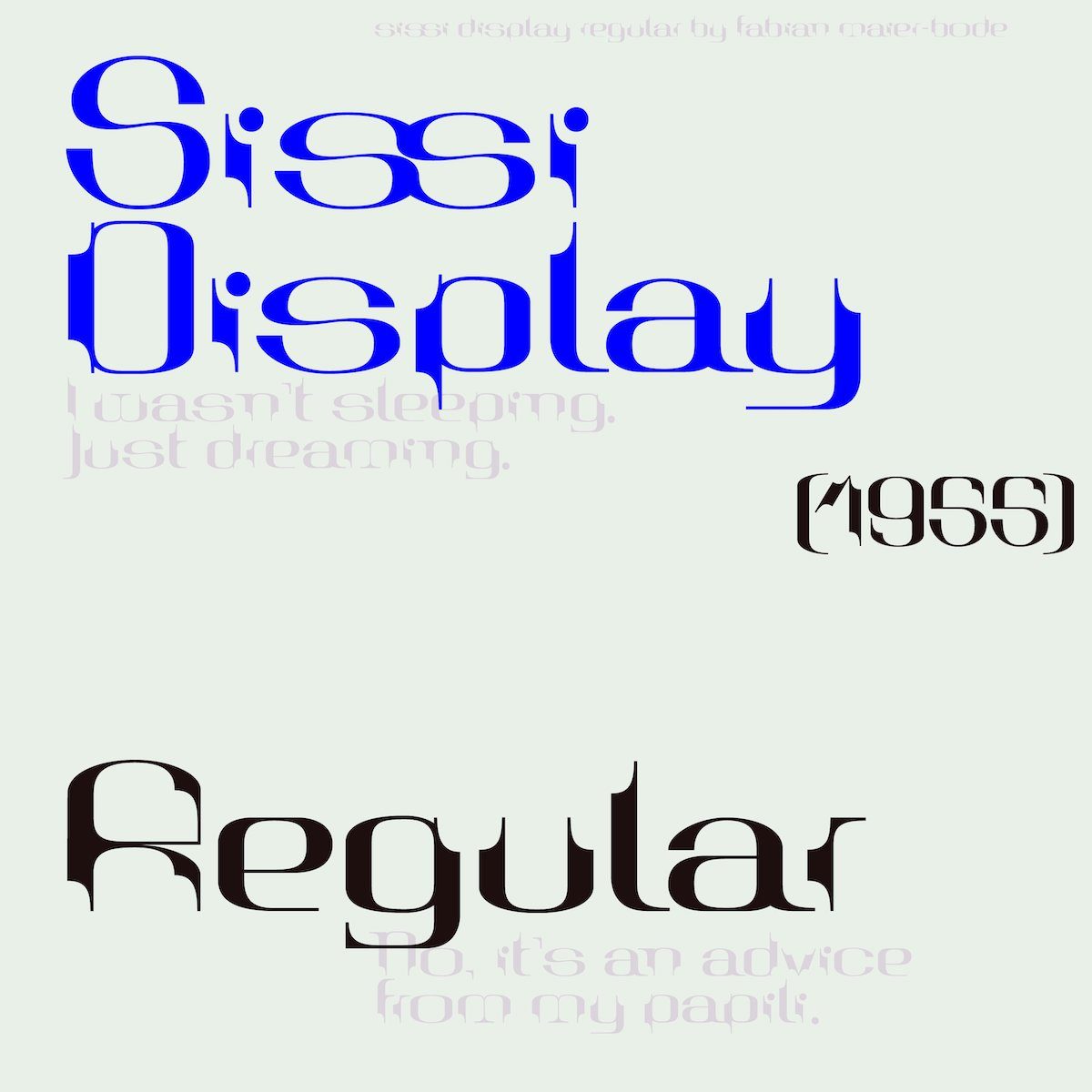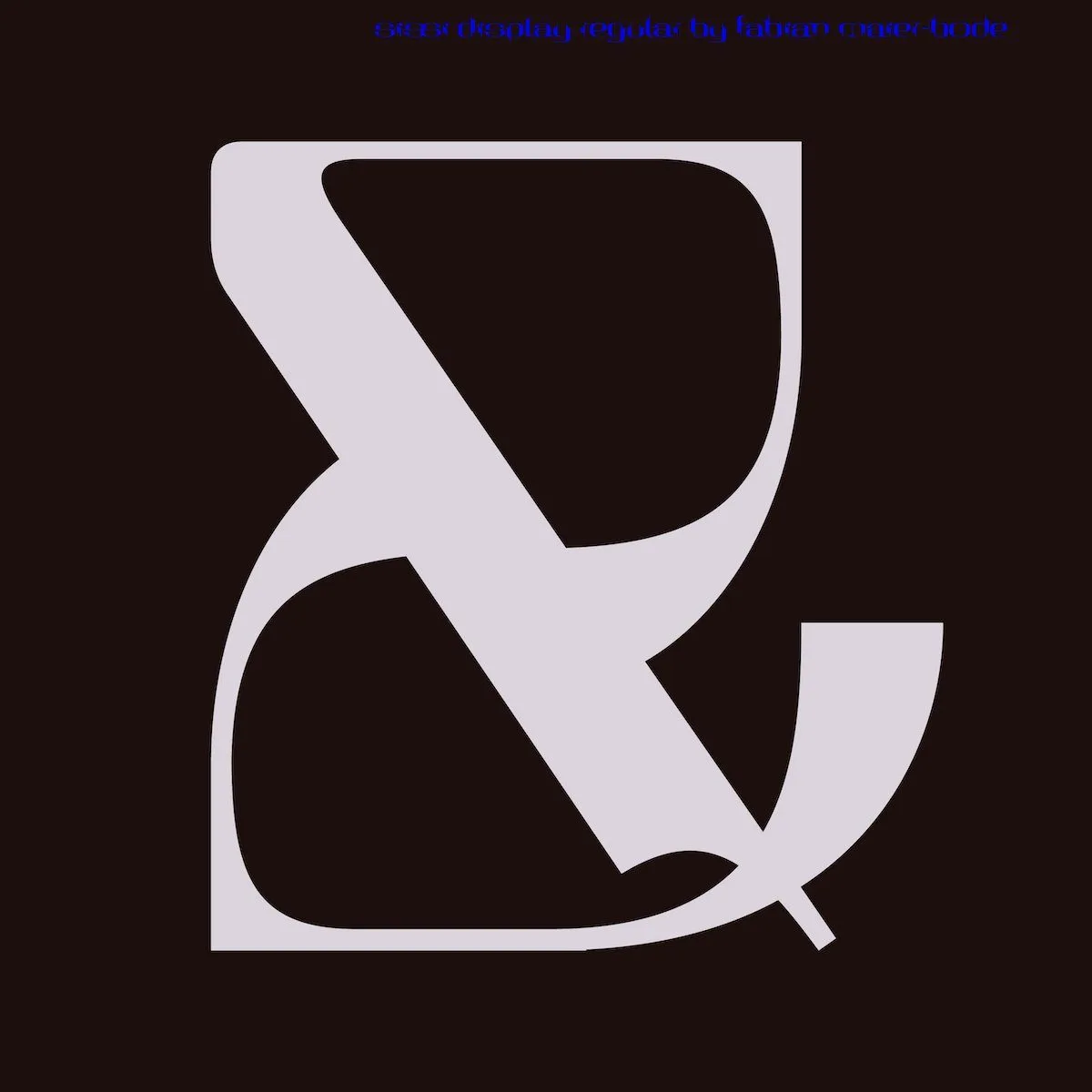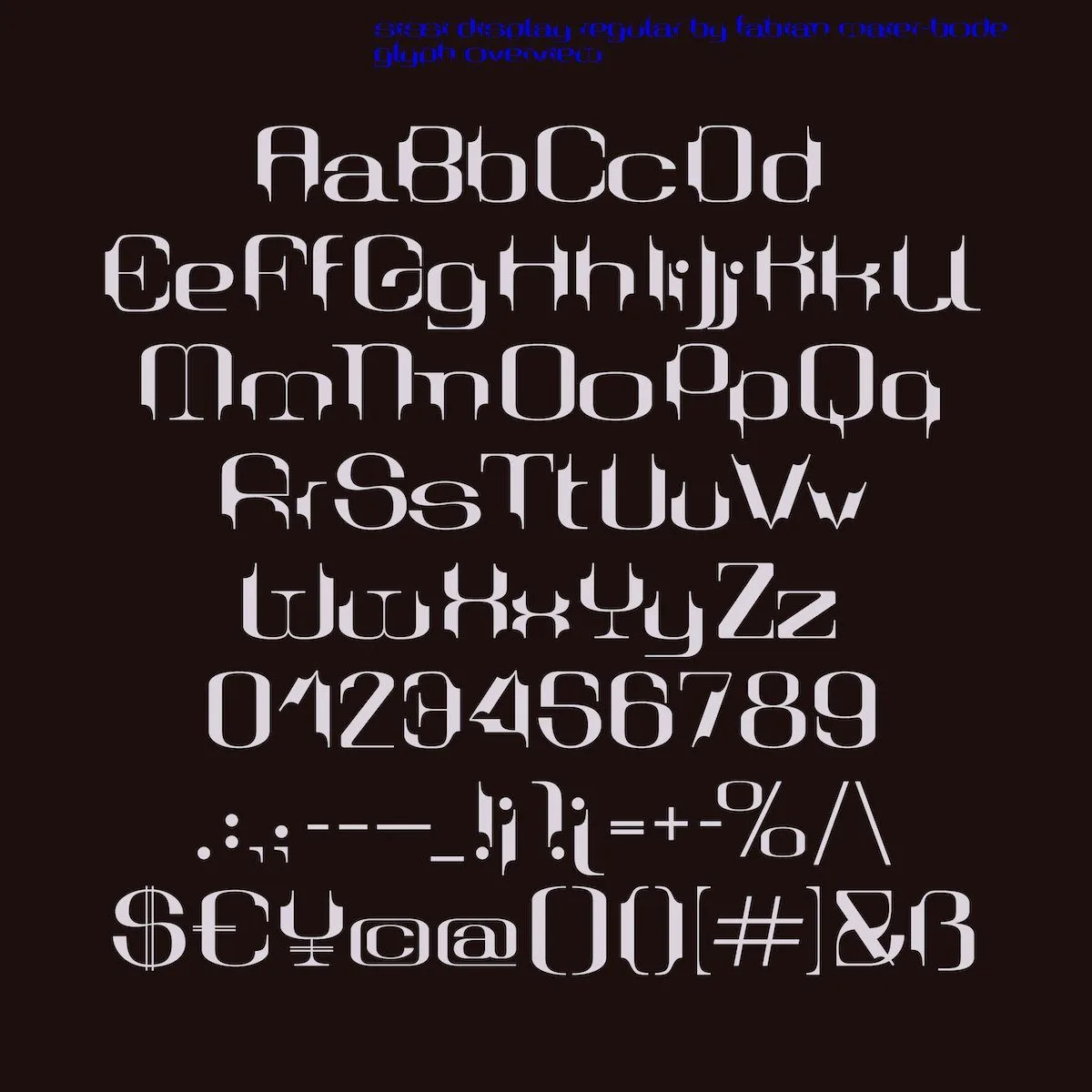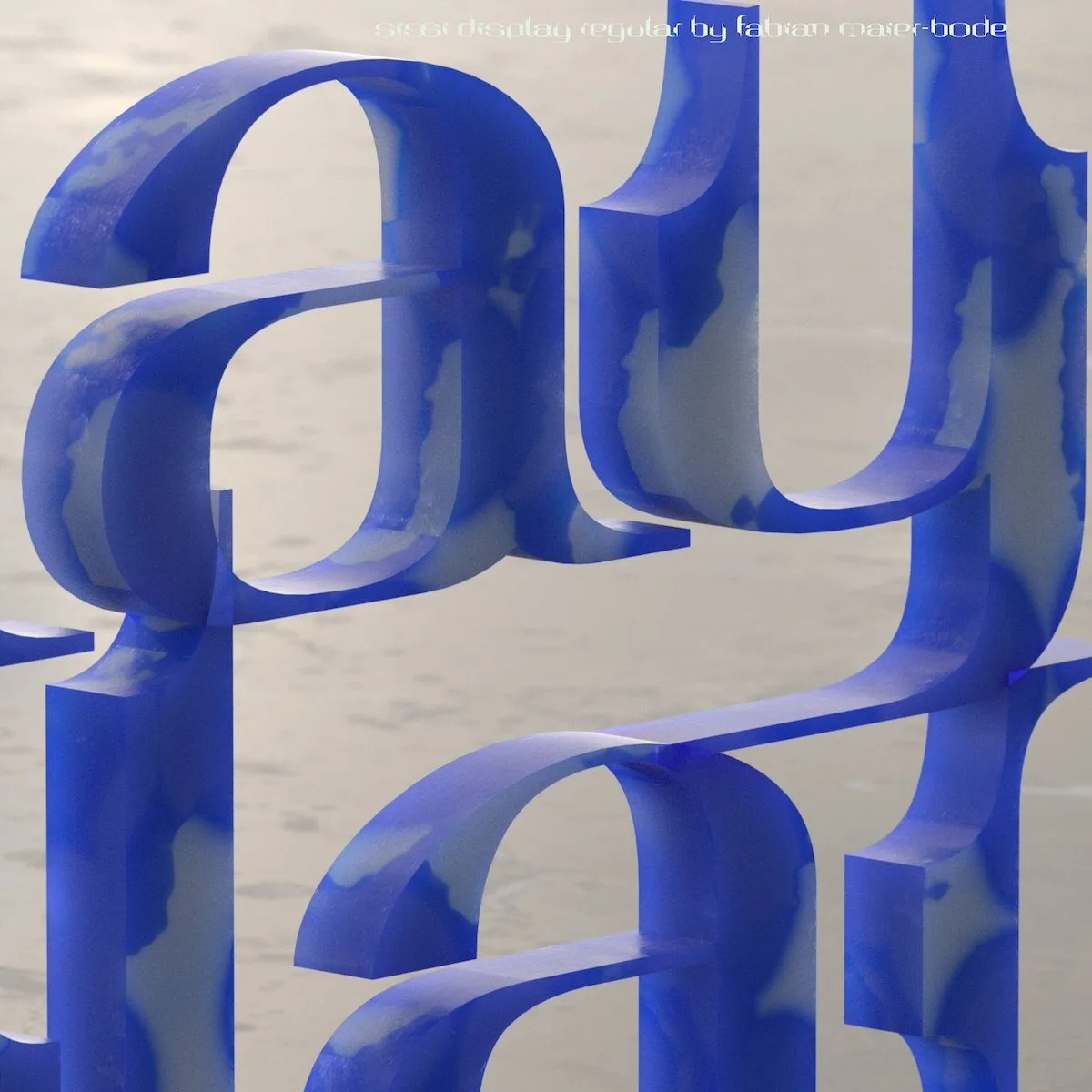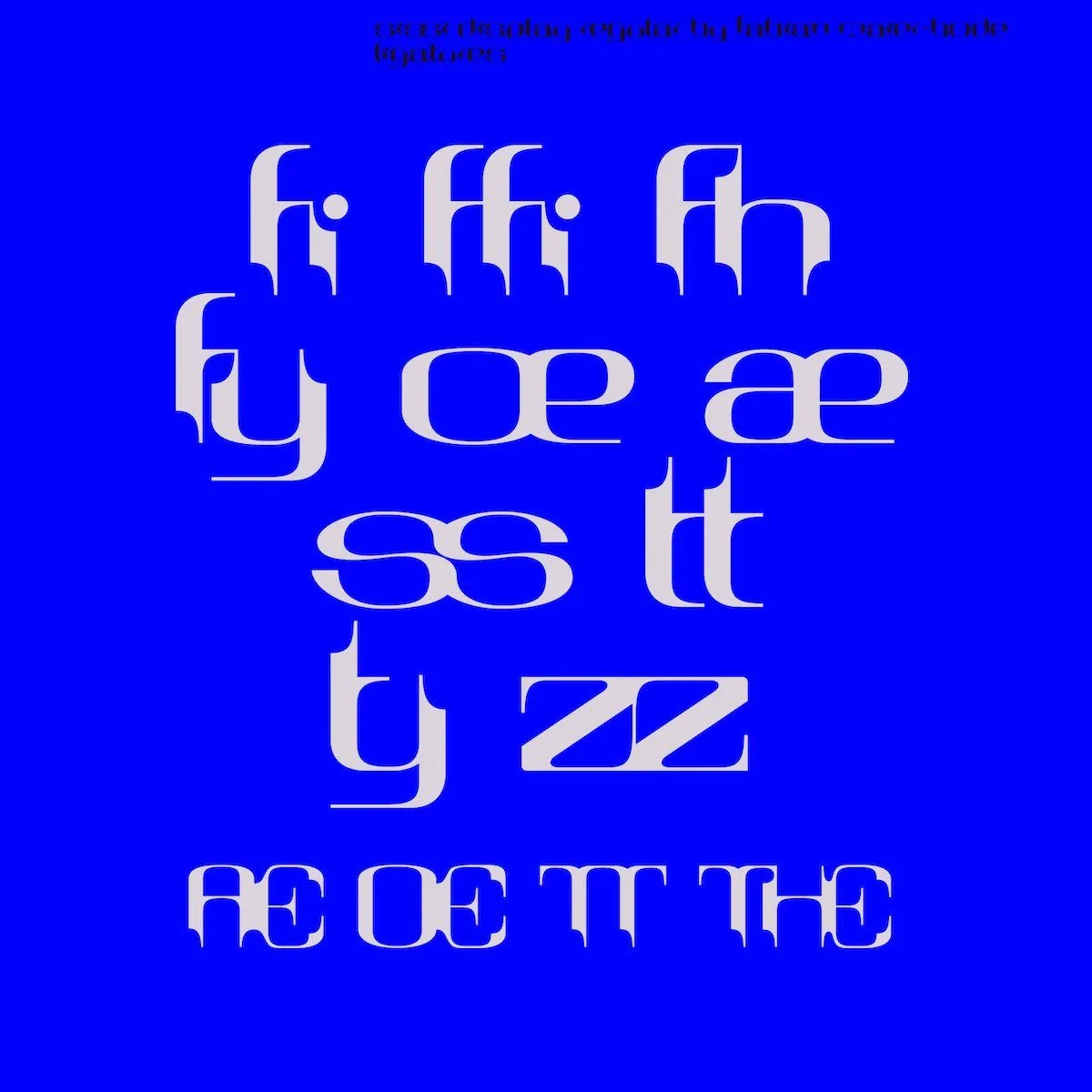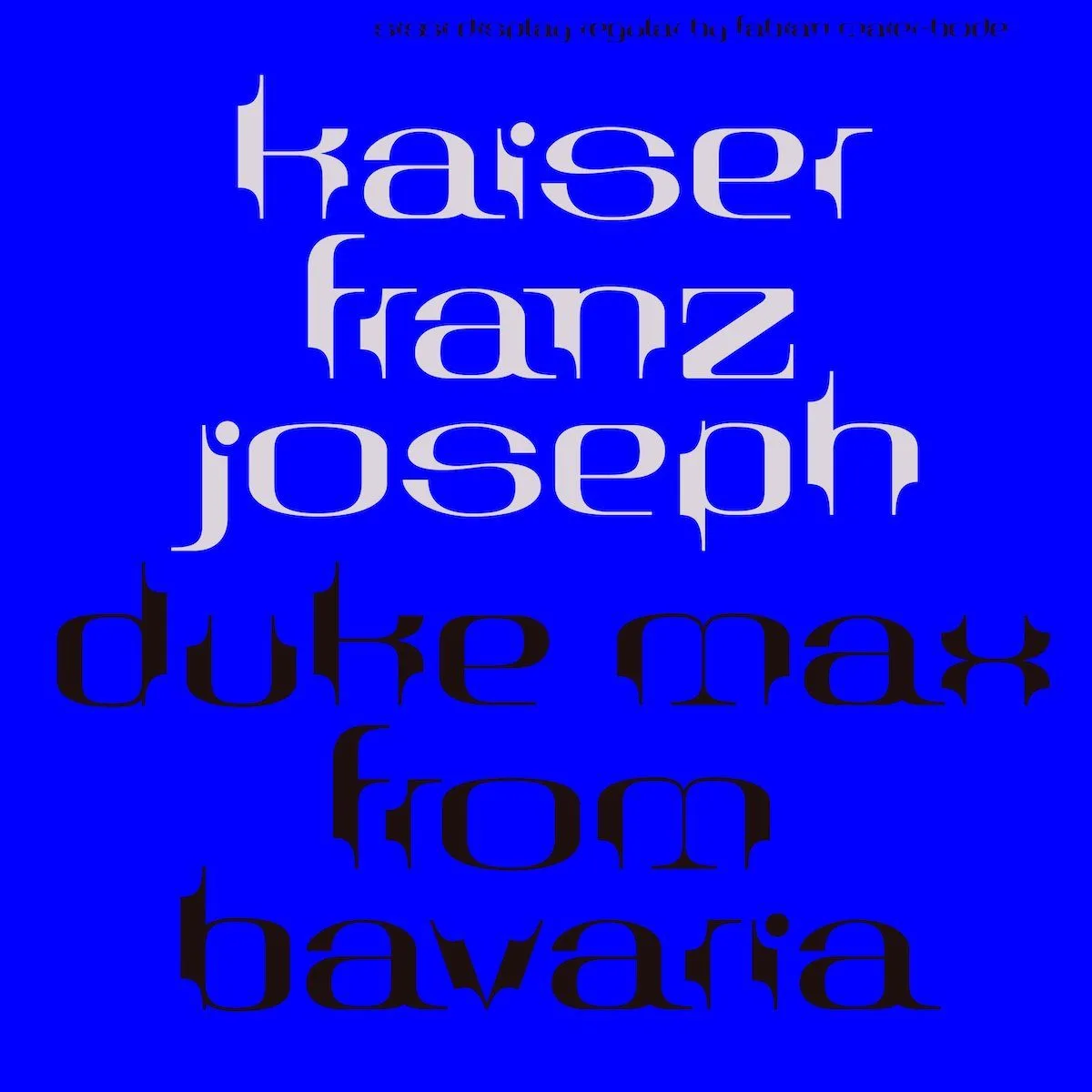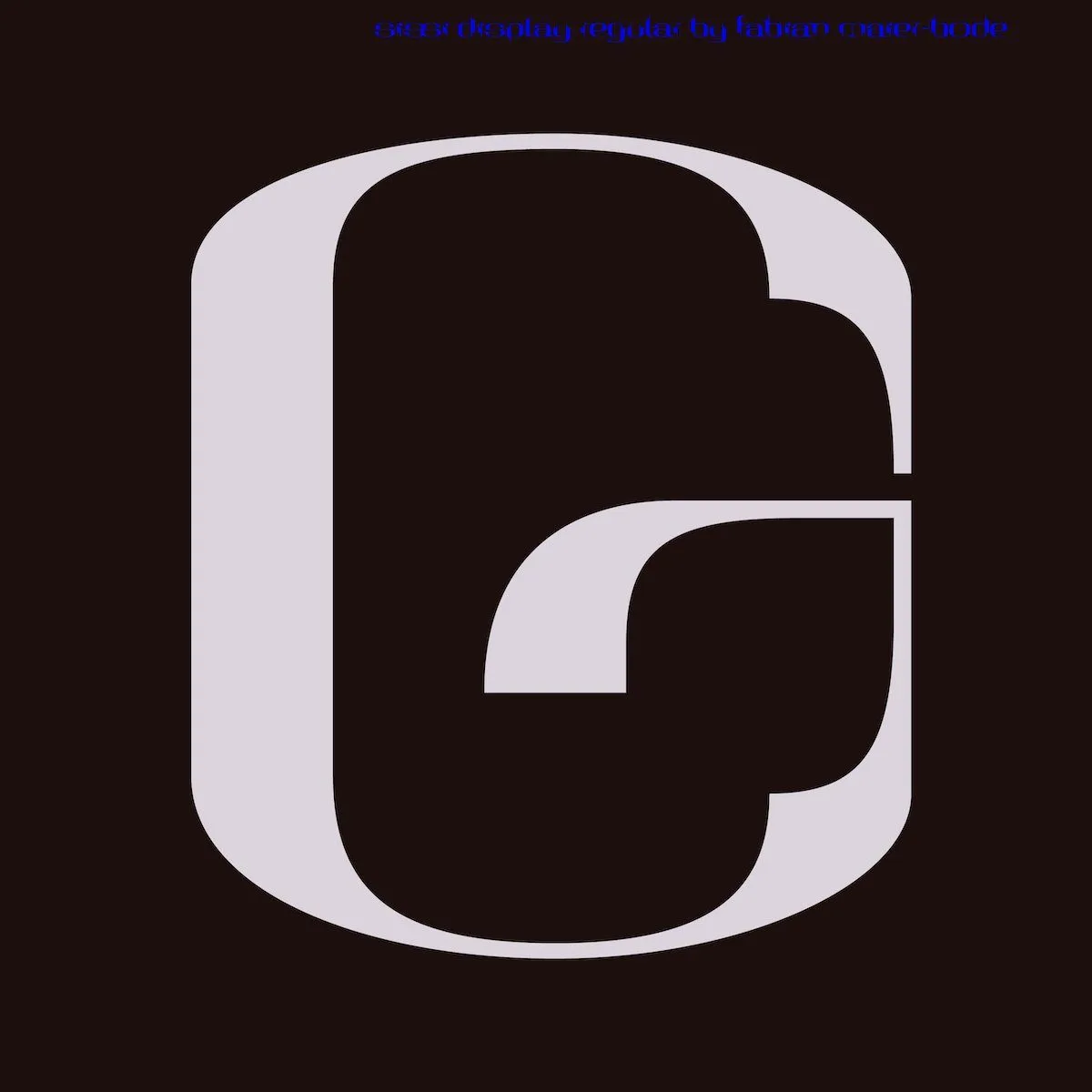
A modern modular blackletter, Sissi Display is a display font to die for. It’s beautiful, a little gothic, majorly nostalgic and totally one of a kind.
Sissi’s designer, Fabian Marierbode, notes the typeface was born during a year-long sabbatical he was taking in Milan. ‘My ex-wife and I were watching the movie Sissi, with Romy Schneider from 1955. Inspired by the dresses and the furniture I started to randomly play around with modular shapes with a strong visual relation to this movie‘.
You can totally see the relation of old furniture shapes plucked right out of the film set – the pointed legs of armchairs and clipped curves of 50’s fashion. Interpreting these shapes into a modern blackletter is such an inventive move, and the result is a fascinating mix of singular nostalgic elements which collect into a modular display with a complex, original and unexpected character… Up close, it feels kind of pretty and cute, but zooming out a different feeling altogether emerges.
Sissi Display works best in large headlines and some medium length texts, offering a dramatic, cinematic breath of fresh air pretty much wherever it goes. See more on Type Department.